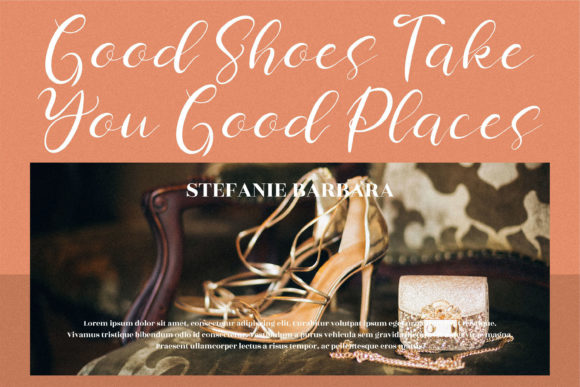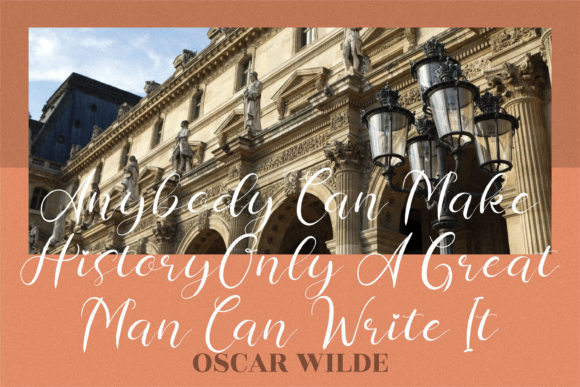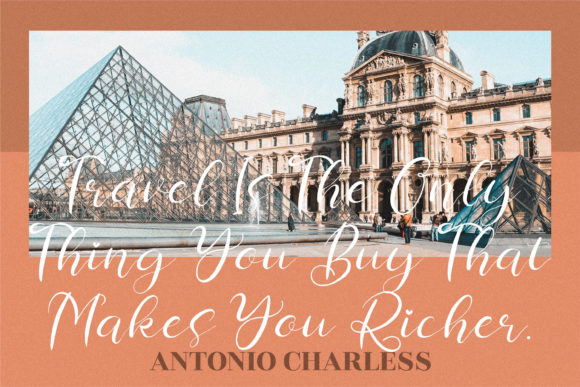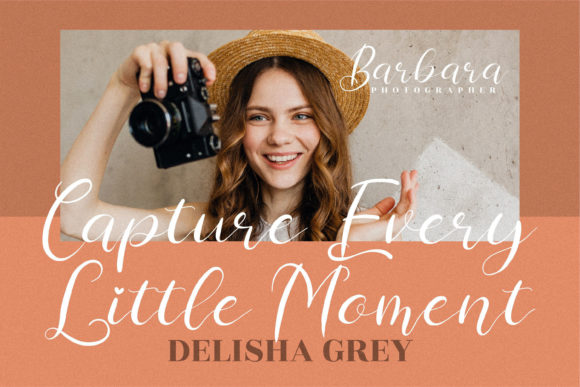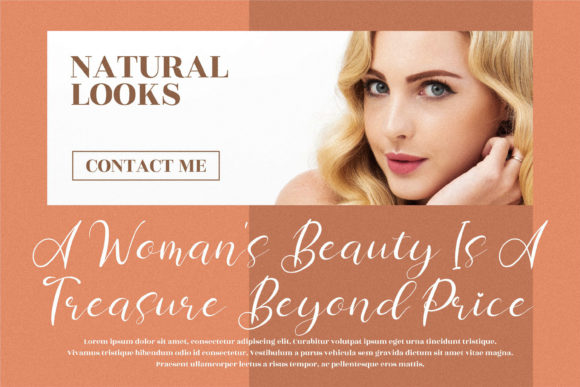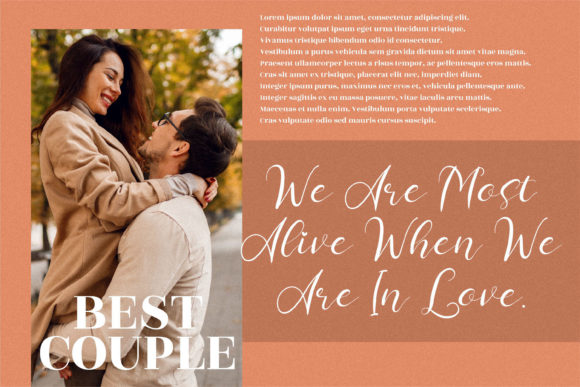
Discover the Elegance of Chamelia Blinkar Font: A Delicate Handwritten Masterpiece
In the world of typography, few fonts manage to capture the essence of elegance and delicacy as effortlessly as the Chamelia Blinkar Font. This beautiful, handwritten font has been making waves among designers and crafters alike, and for good reason. Its distinct, well-balanced letters and incredibly versatile style make it a masterpiece that can elevate any design project from ordinary to extraordinary.
The Unique Charm of Chamelia Blinkar
Chamelia Blinkar Font is a delicate and elegant handwritten font that exudes a sense of sophistication and refinement. Each letter is carefully crafted to ensure that the font flows smoothly, making it a joy to read and behold. The unique charm of Chamelia Blinkar lies in its ability to convey a sense of whimsy and romance, making it perfect for a wide range of design applications, from wedding invitations and branding to packaging and digital media.
Key Features of Chamelia Blinkar Font
- Delicate and Elegant: Chamelia Blinkar boasts a delicate and elegant style that adds a touch of sophistication to any design.
- Distinct and Well-Balanced Letters: The font features distinct and well-balanced letters that ensure clarity and readability.
- Incredibly Versatile: With its versatile style, Chamelia Blinkar can be used for a variety of design projects, from romantic wedding designs to modern branding.
- PUA Encoded: This font is PUA (Private Use Area) encoded, which means you can easily access all the glyphs and swashes, giving you more creative freedom.
Why Designers and Crafters Love Chamelia Blinkar
Designers and crafters love Chamelia Blinkar for its flexibility and the emotional connection it helps to establish with the audience. Here are a few reasons why:
- Ease of Use: Being PUA encoded, Chamelia Blinkar allows users to access a wide range of glyphs and swashes without any hassle, making the design process smoother and more efficient.
- Unique Designs: The font’s unique and elegant style helps designers create standout designs that capture attention and leave a lasting impression.
- Versatility Across Projects: Whether you’re working on a logo, a website, a digital illustration, or a craft project, Chamelia Blinkar adapts beautifully, ensuring your design looks great across different mediums.
Tips for Using Chamelia Blinkar Font Effectively
To make the most of Chamelia Blinkar Font, consider the following tips:
- Pair with Complementary Fonts: For maximum impact, pair Chamelia Blinkar with clean, sans-serif fonts to create a beautiful contrast.
- Experiment with Sizes and Colors: Don’t be afraid to experiment with different sizes and colors to find the perfect combination that suits your design.
- Utilize Swashes and Glyphs: Take advantage of the PUA encoding to add decorative swashes and glyphs that enhance your design’s aesthetic.
Chamelia Blinkar Font is a true gem in the world of typography, offering designers and crafters a delicate, elegant, and versatile tool to create spectacular designs. Its unique charm, combined with its PUA encoding for easy access to glyphs and swashes, makes it an indispensable asset for anyone looking to add a touch of elegance and whimsy to their work. Whether you’re designing for digital platforms or crafting something with your hands, Chamelia Blinkar is sure to inspire and elevate your creations.
So, fall in love with the beauty of Chamelia Blinkar Font and discover a world of design possibilities that are as limitless as your imagination.